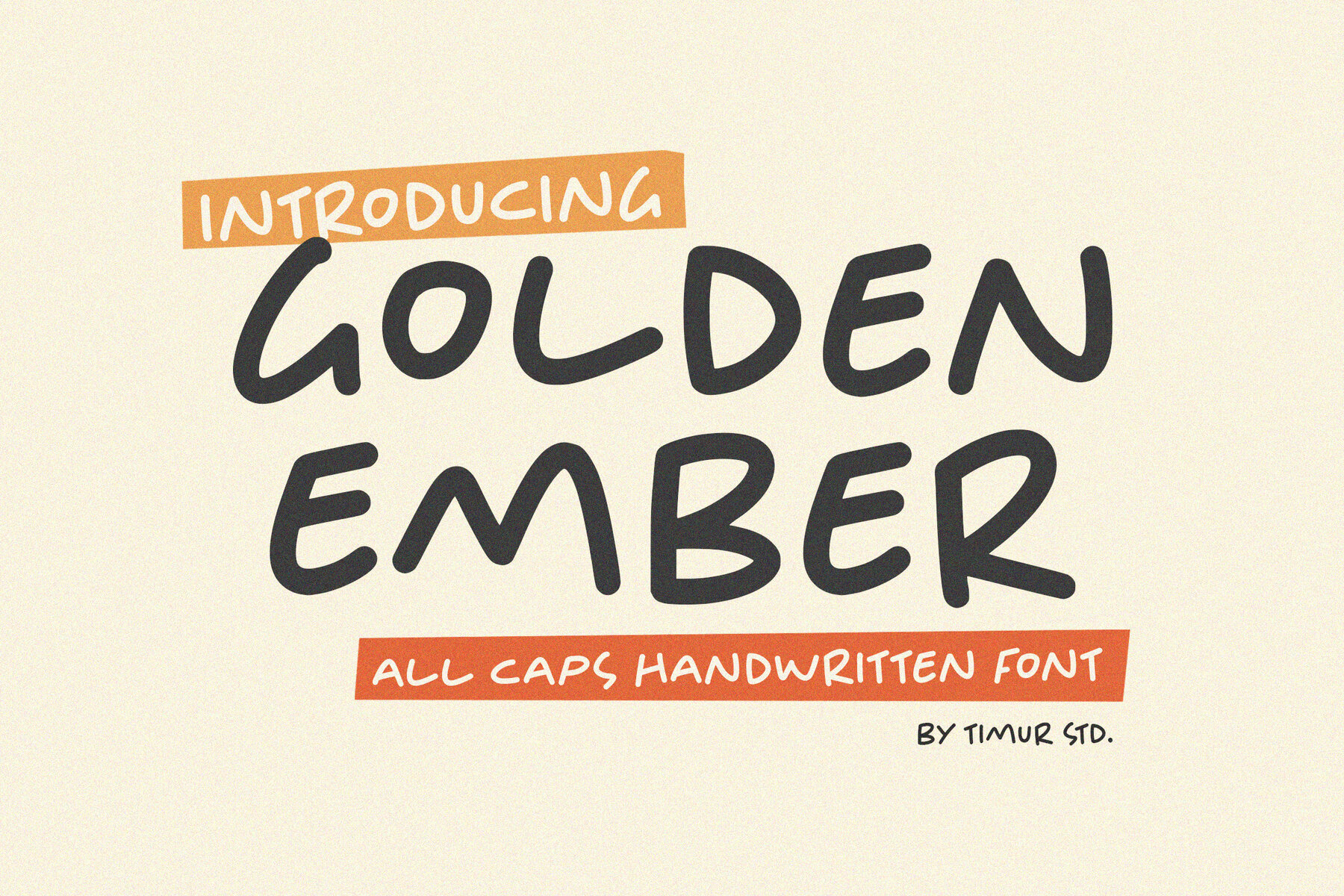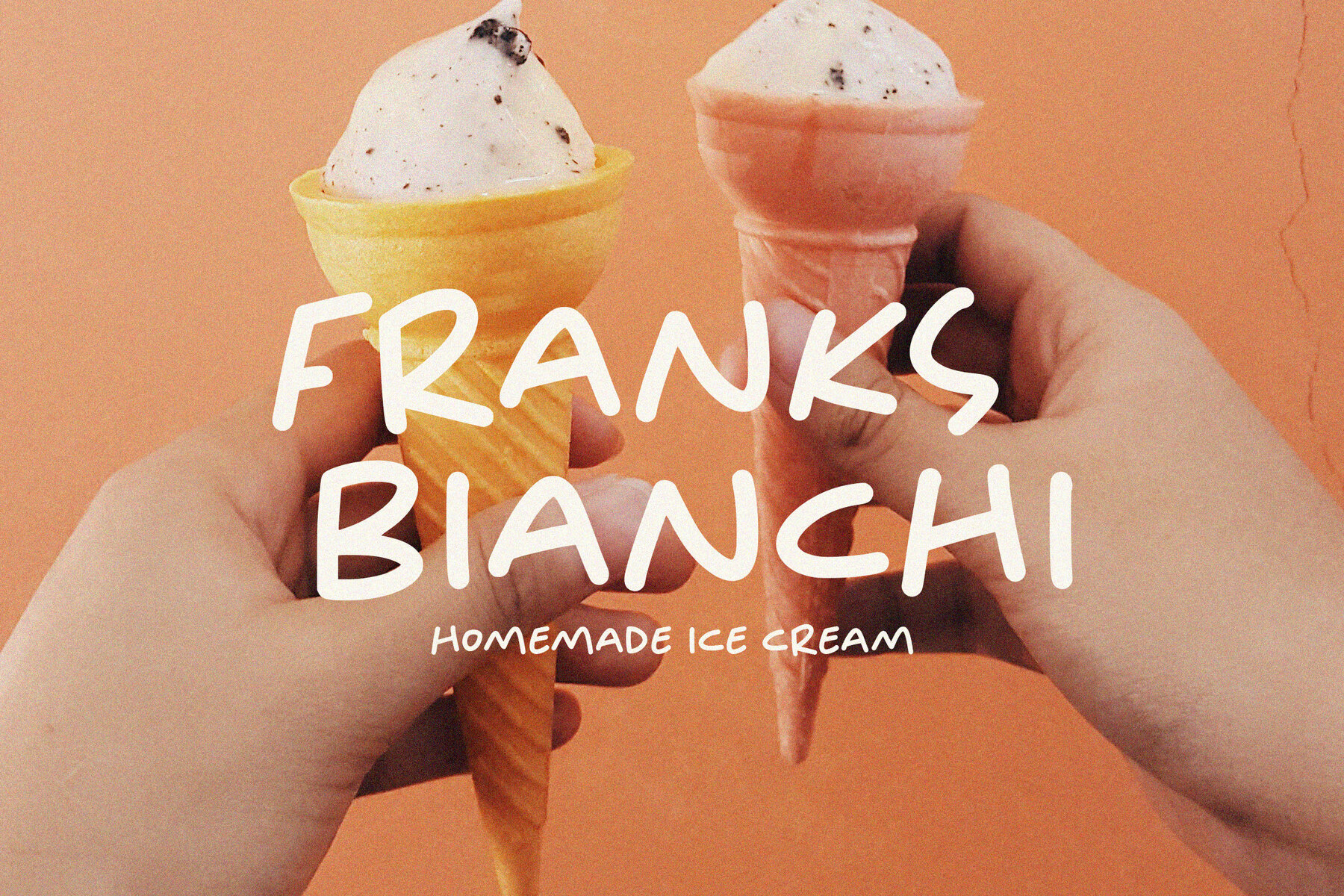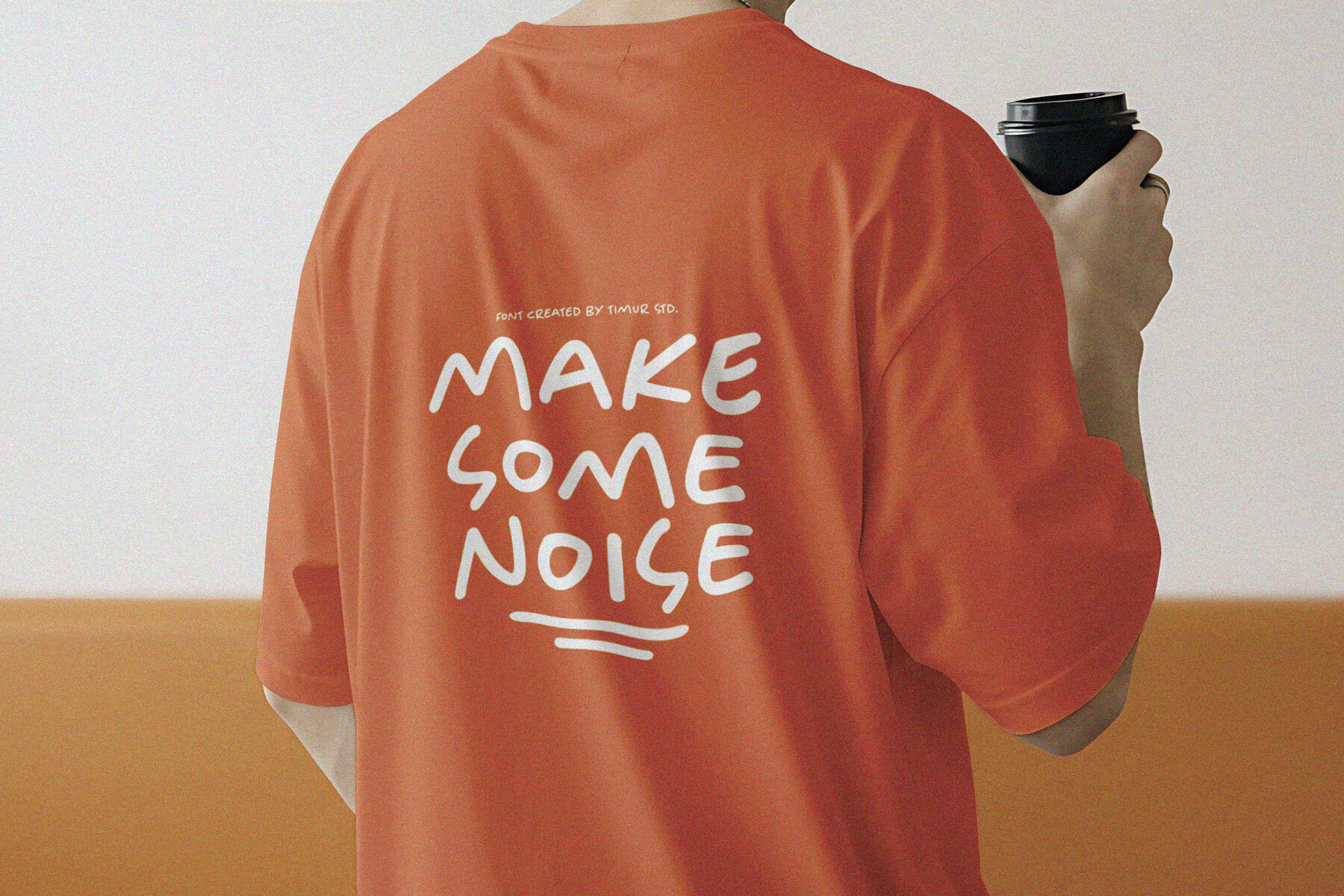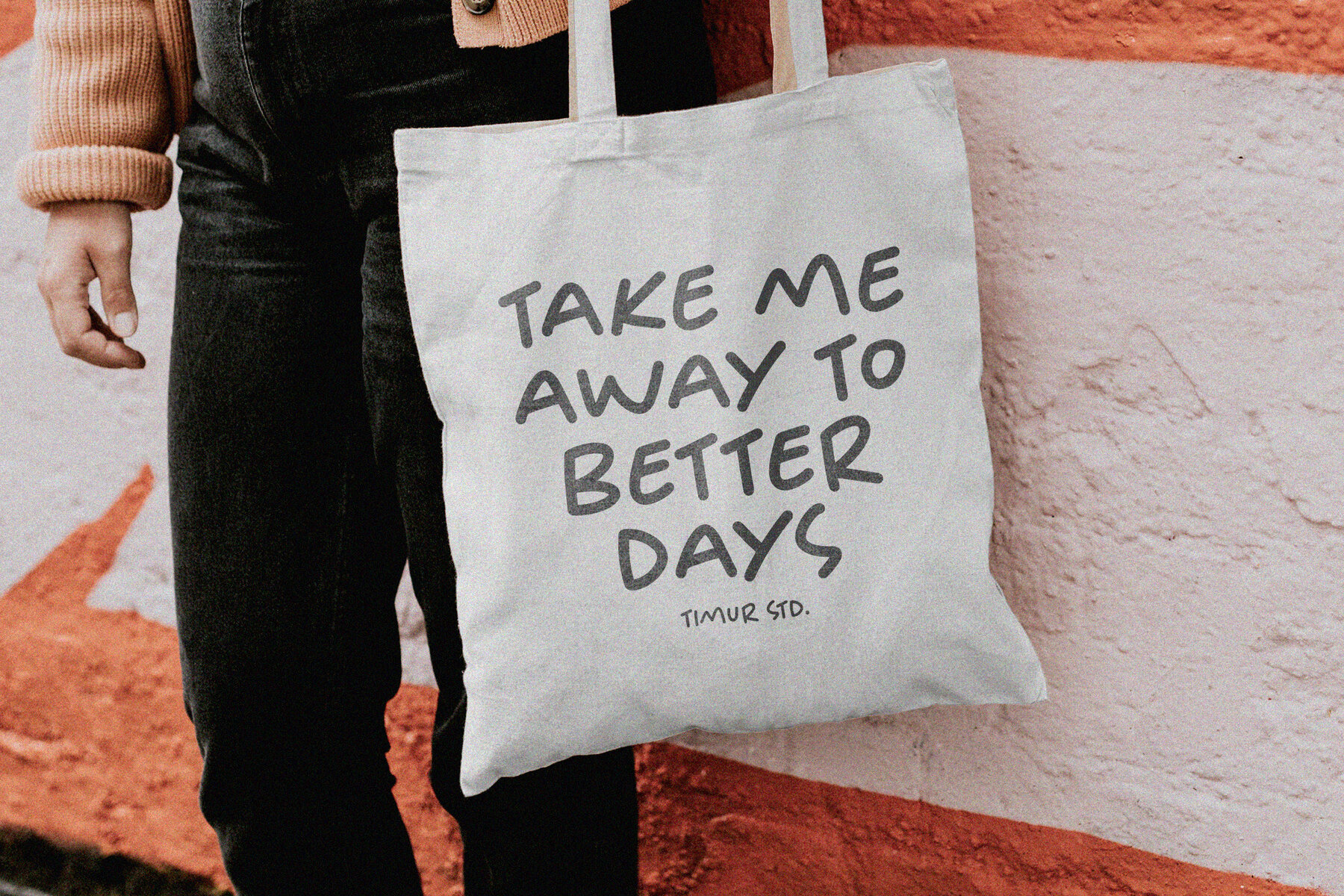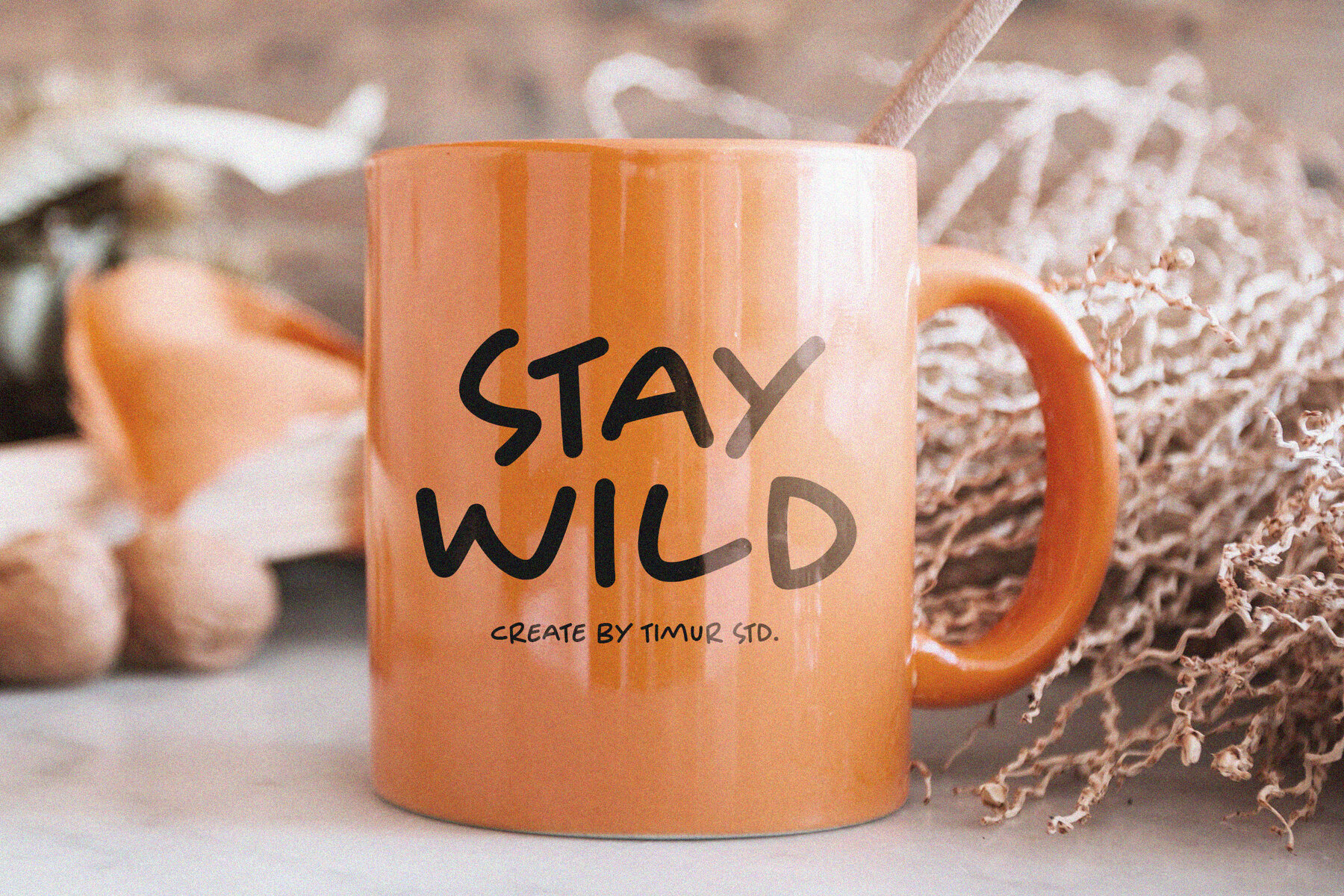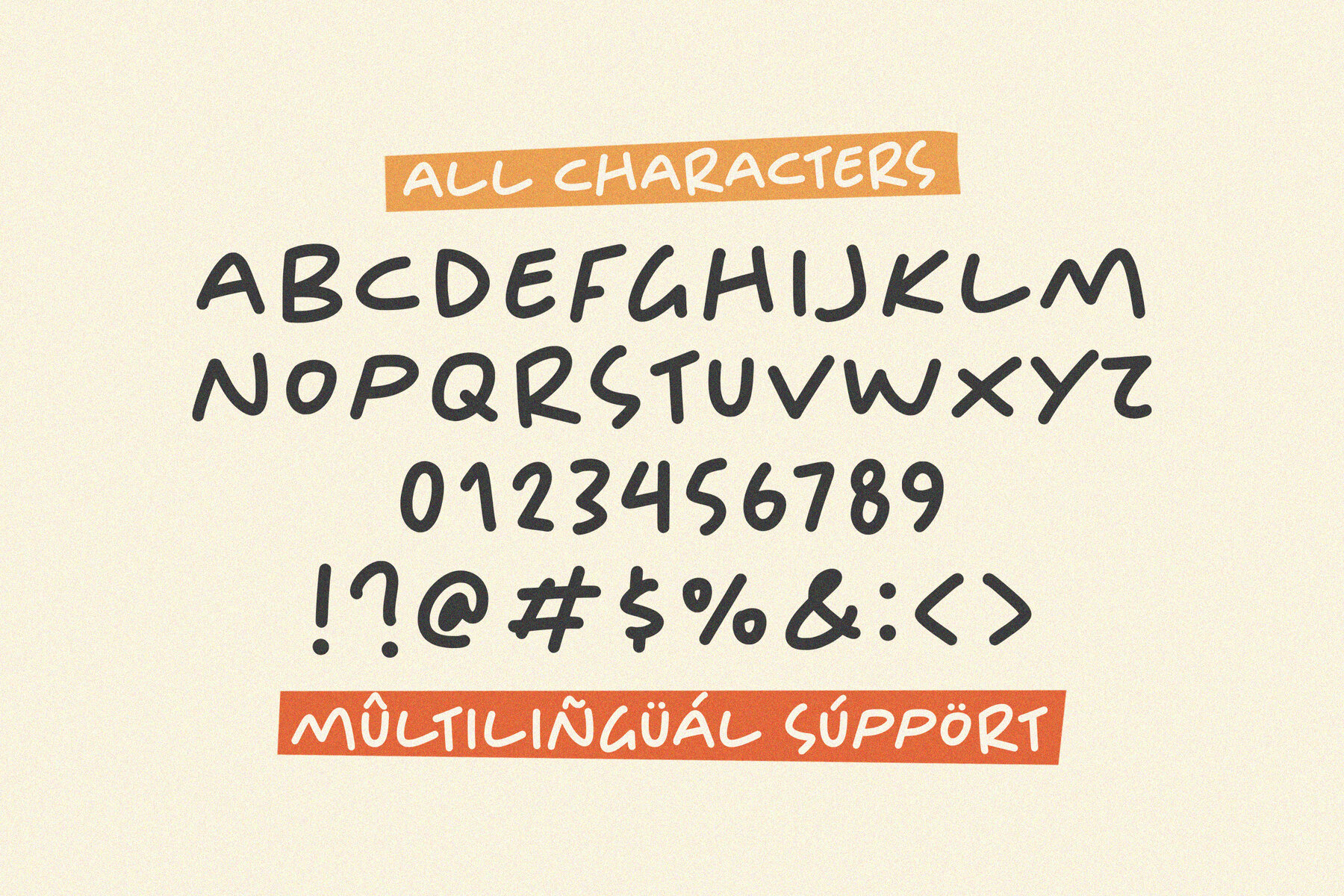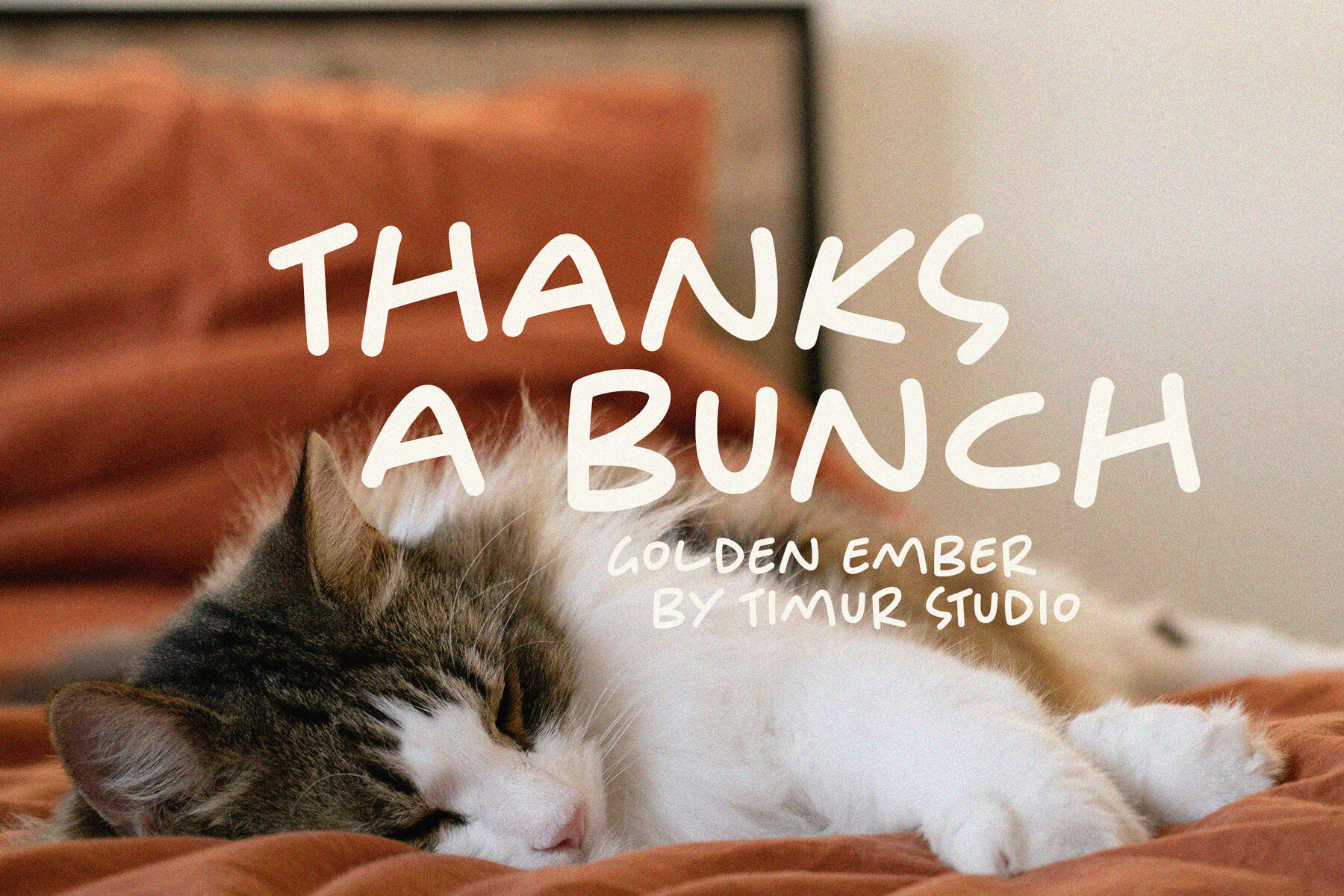
Golden Ember Font
Golden Ember
Golden Ember emerges as a distinctive all-caps handwritten font imbued with a vibrant character. Its bold, imperfect lines evoke an authentic, handcrafted aesthetic, making it an ideal choice for projects that demand a touch of raw energy and warmth. Whether used in logos, posters, or striking design statements, Golden Ember brings an unmistakable flair.Golden Ember: A Bold Handwritten Font